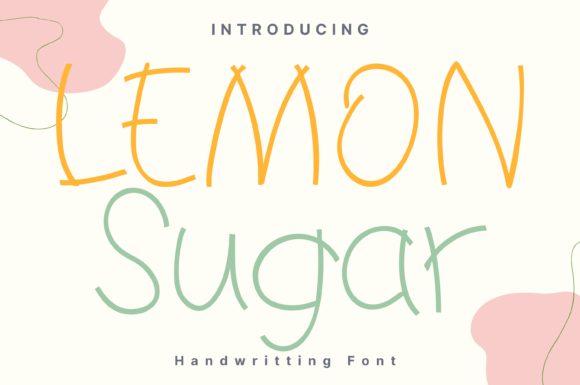
Introducing Lemon Sugar Font, a whimsical and clean handwritten font that adds a touch of charm and uniqueness to your creative projects. Dive into the world of Lemon Sugar, where your ideas take shape with a playful and captivating touch.
**Step into a World of Whimsy with Lemon Sugar Font**
Lemon Sugar is not just a font; it's an experience that transports you to a world of imagination and delight. With its playful curves and enchanting strokes, this font captures the essence of childhood dreams and sparks your creativity. Each character dances across the page, leaving a trail of enchantment that captivates your audience.
**Unleash Your Creativity with Endless Possibilities**
With Lemon Sugar Font, the possibilities are endless. Whether you're designing invitations, greeting cards, social media posts, posters, or website content, Lemon Sugar adds a touch of magic that elevates your work. It's the perfect companion for creating logos, branding materials, and any project that demands a burst of personality.
**Connect with Your Audience on a Deeper Level**
Lemon Sugar Font has a way of connecting with your audience on a deeper level. Its charming and approachable style evokes a sense of nostalgia and warmth, inviting readers to engage with your content. Whether you're sharing a heartfelt message or promoting a product, Lemon Sugar creates an intimate and memorable connection that leaves a lasting impression.
**Experience the Magic of Lemon Sugar Font Today**